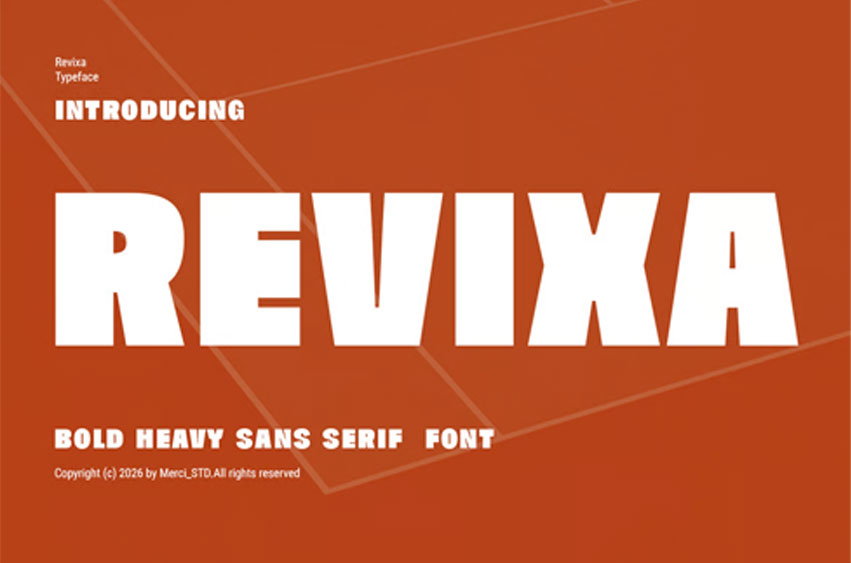
Revixa Font is a bold heavy sans serif font with strong block shapes and solid modern presence.
Ideal for headlines, branding, posters, editorial layouts, corporate visuals, and impactful display projects, this font offers clean structure and powerful readability with confident typography.